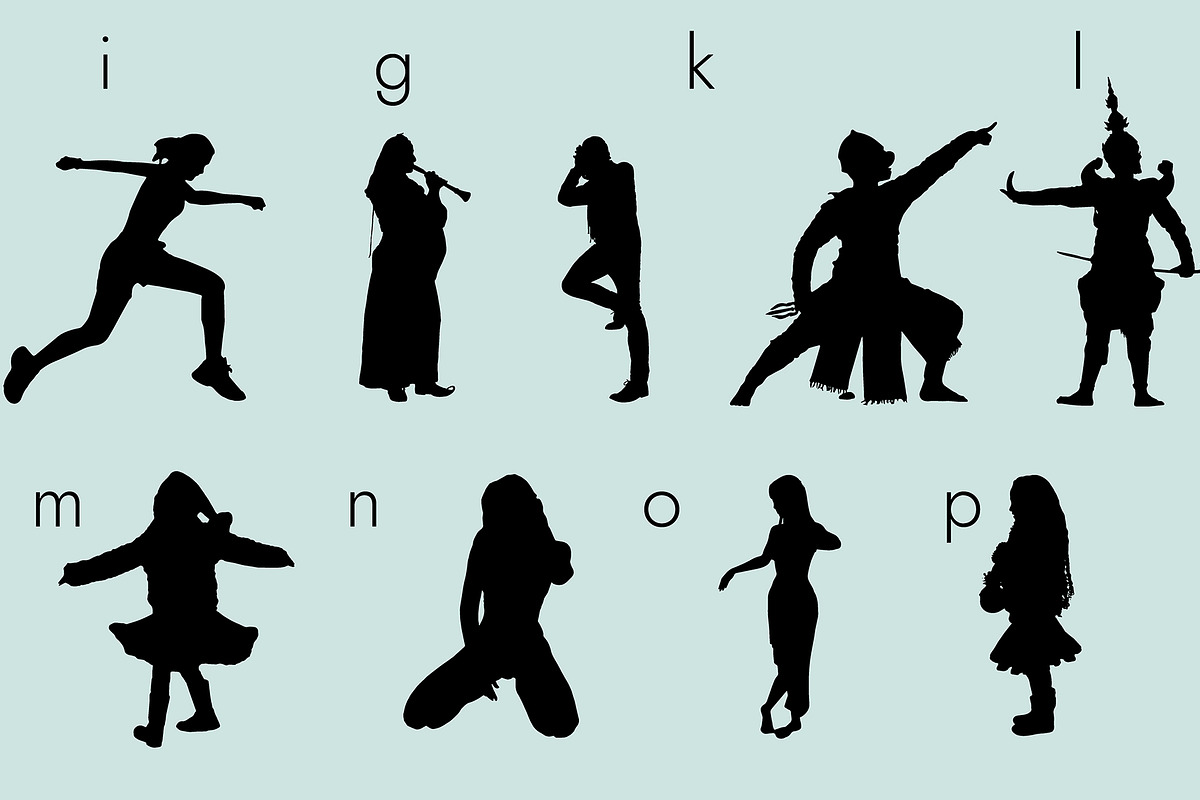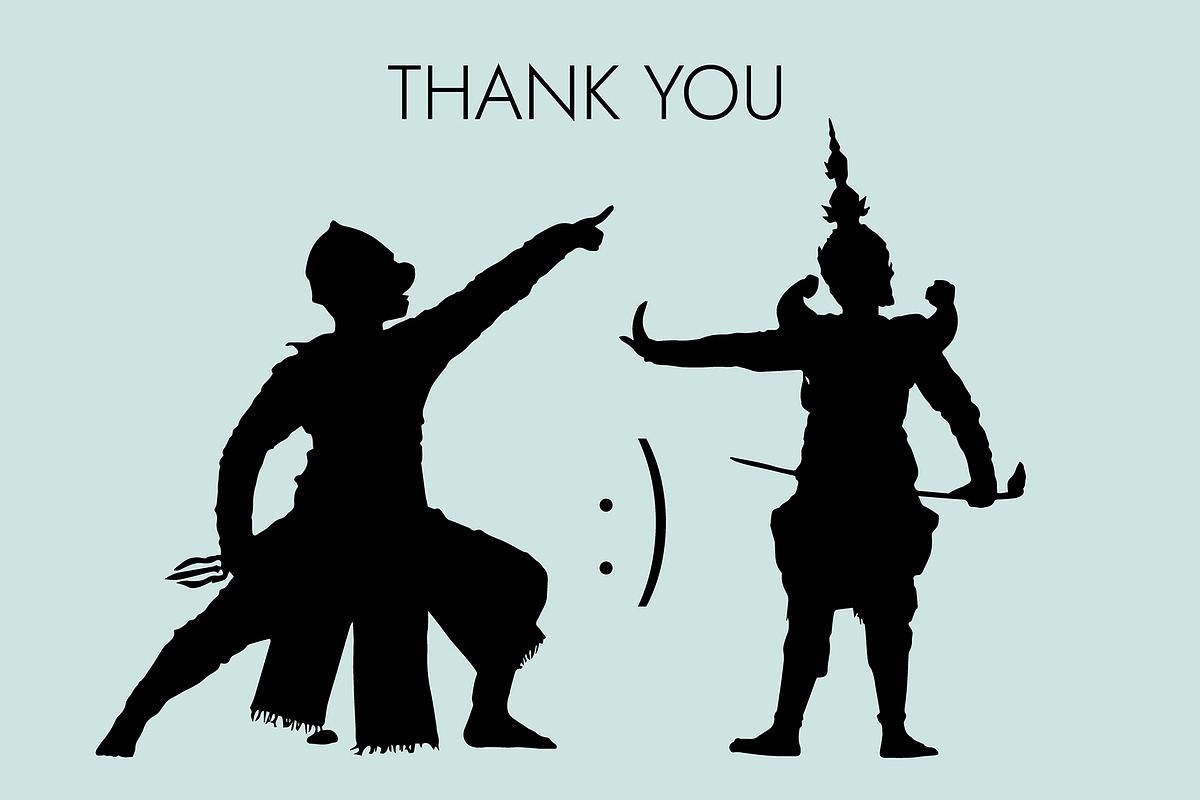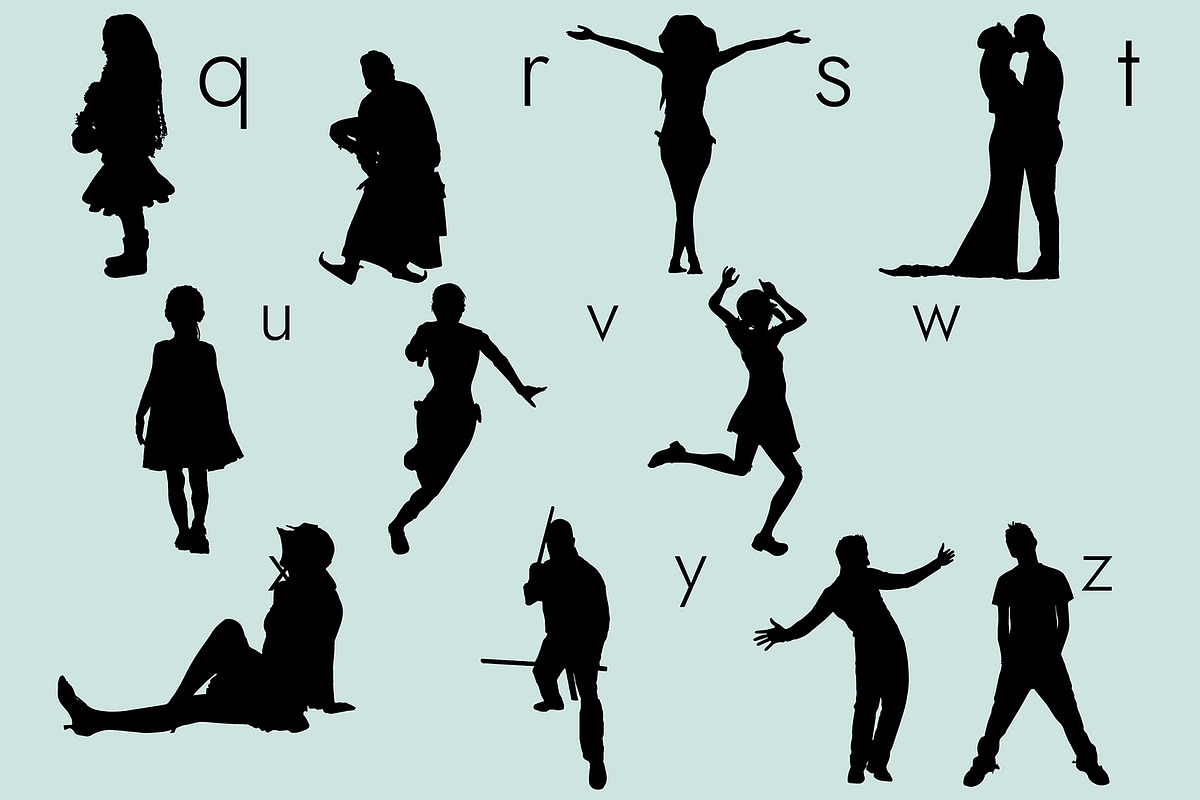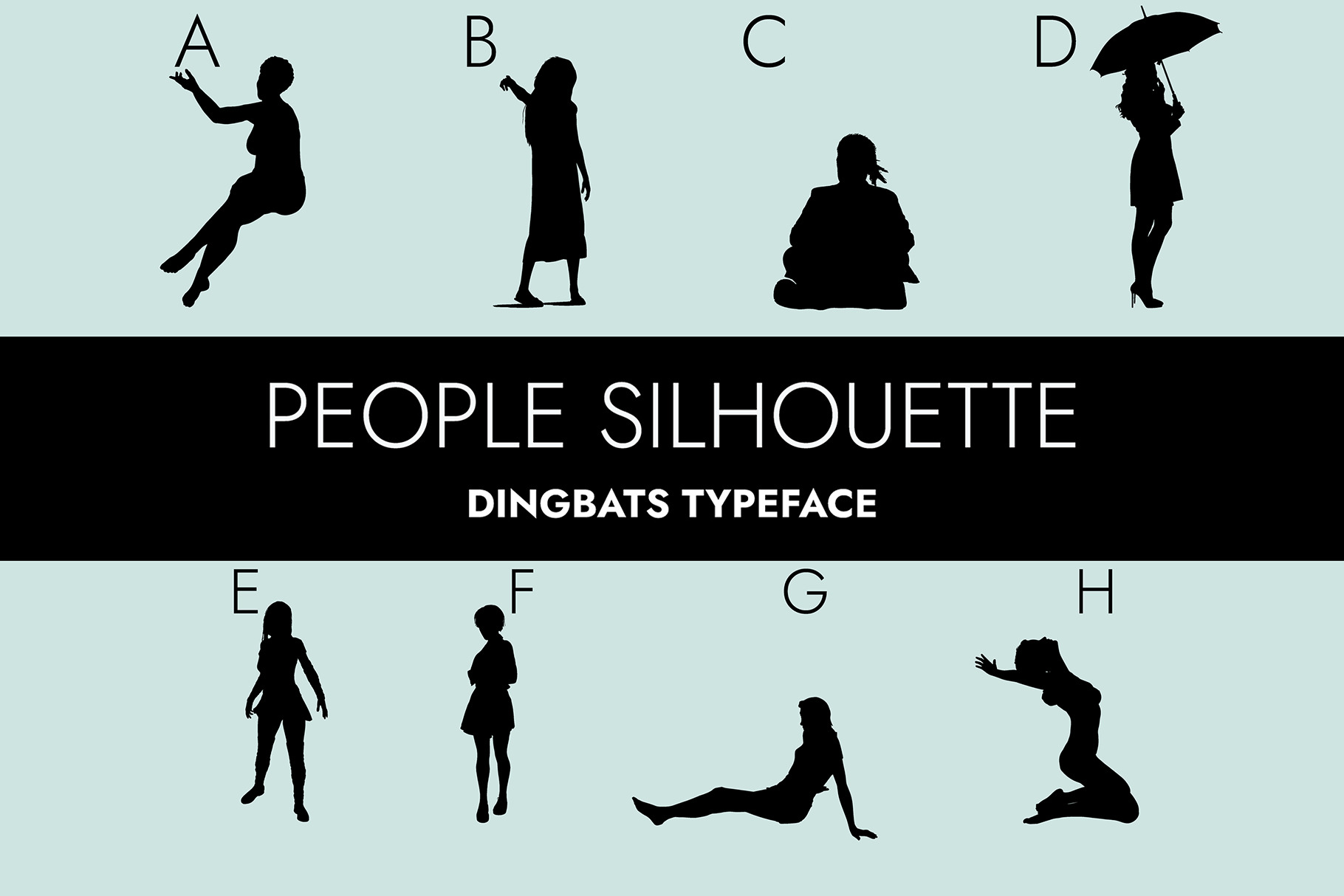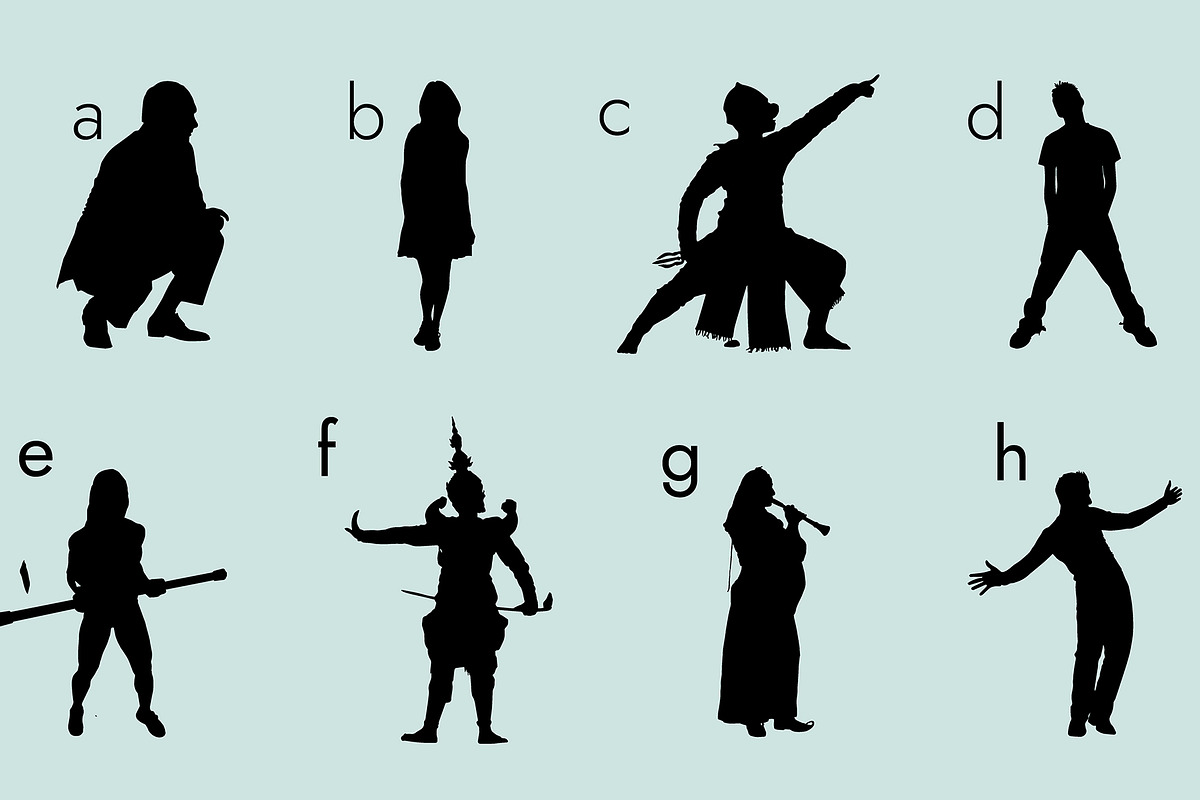
People Silhouettes Dingbats Font
People Silhouettes 2.0 is a beautiful dingbats font that allows you to generate unique and well-done people silhouettes by only typing letters or numbers. You will definitely love this creative font!